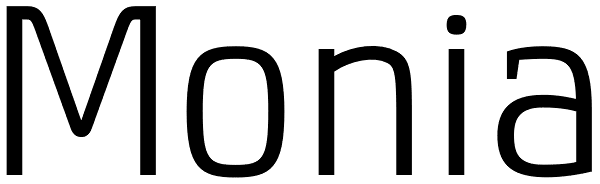
Monia
Monia is a modern grotesque font family designed as body and display type. With its extent of five weights, a true Italic, as well as a Light Condensed version, it offers a wide range of design opportunities.